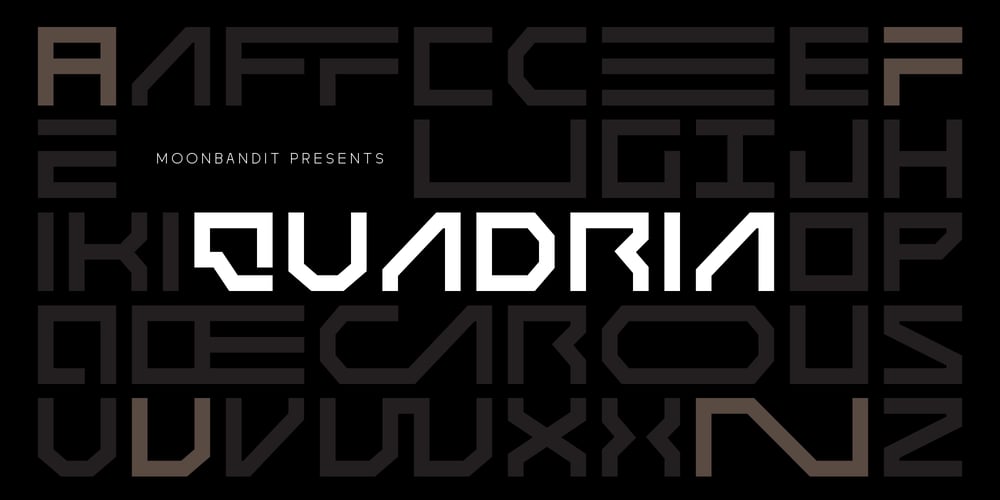
MBF Quadria
MBF Quadria font
MBF Quadria Font Family was designed by Bramaji Dipa Manggala and published by Moonbandit. MBF Quadria contains 1 styles and family package options. Quadria, is an experimental square font. With many alternative and ligature, this typeface is more than capable to fulfill all the square variant you need in a font. Use this font for title, headline, logo, poster and many other design projects.